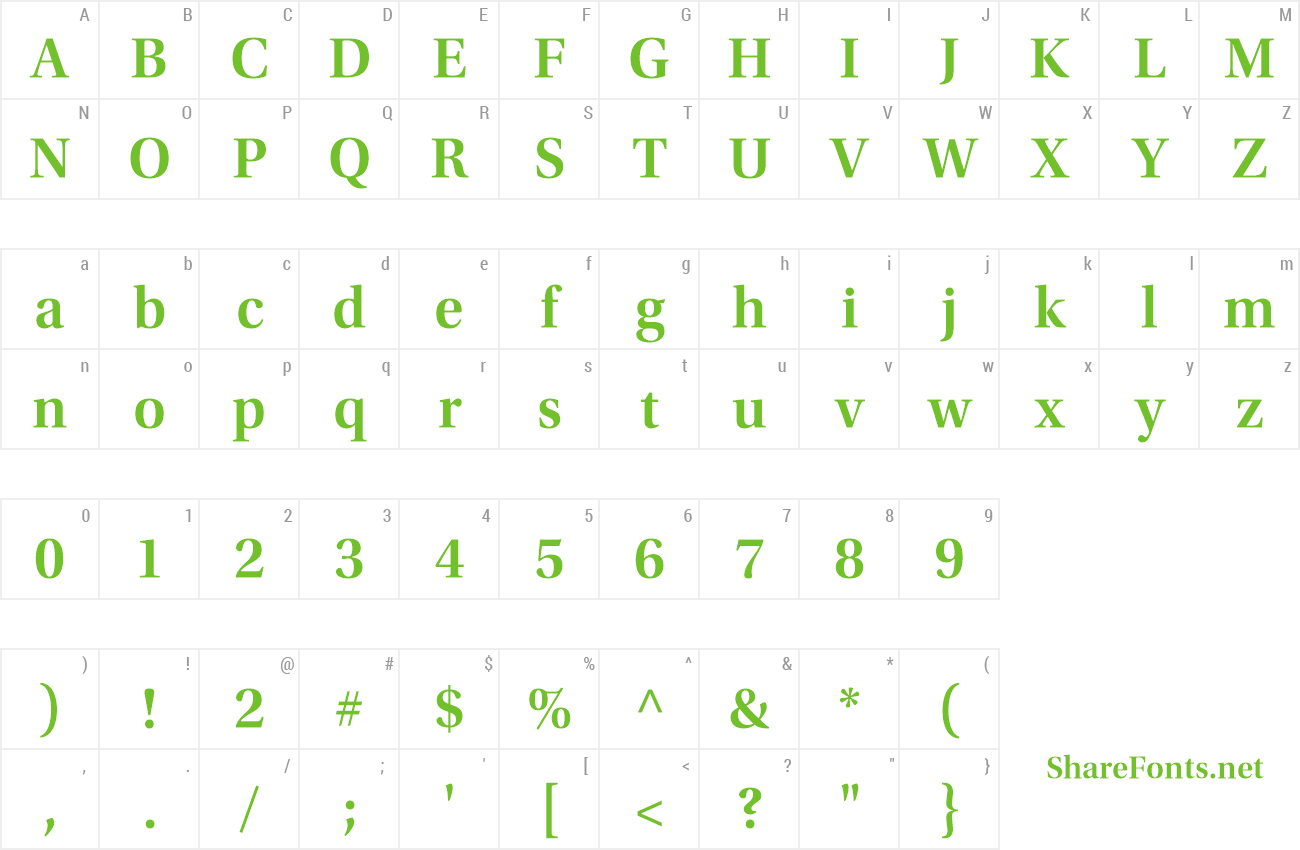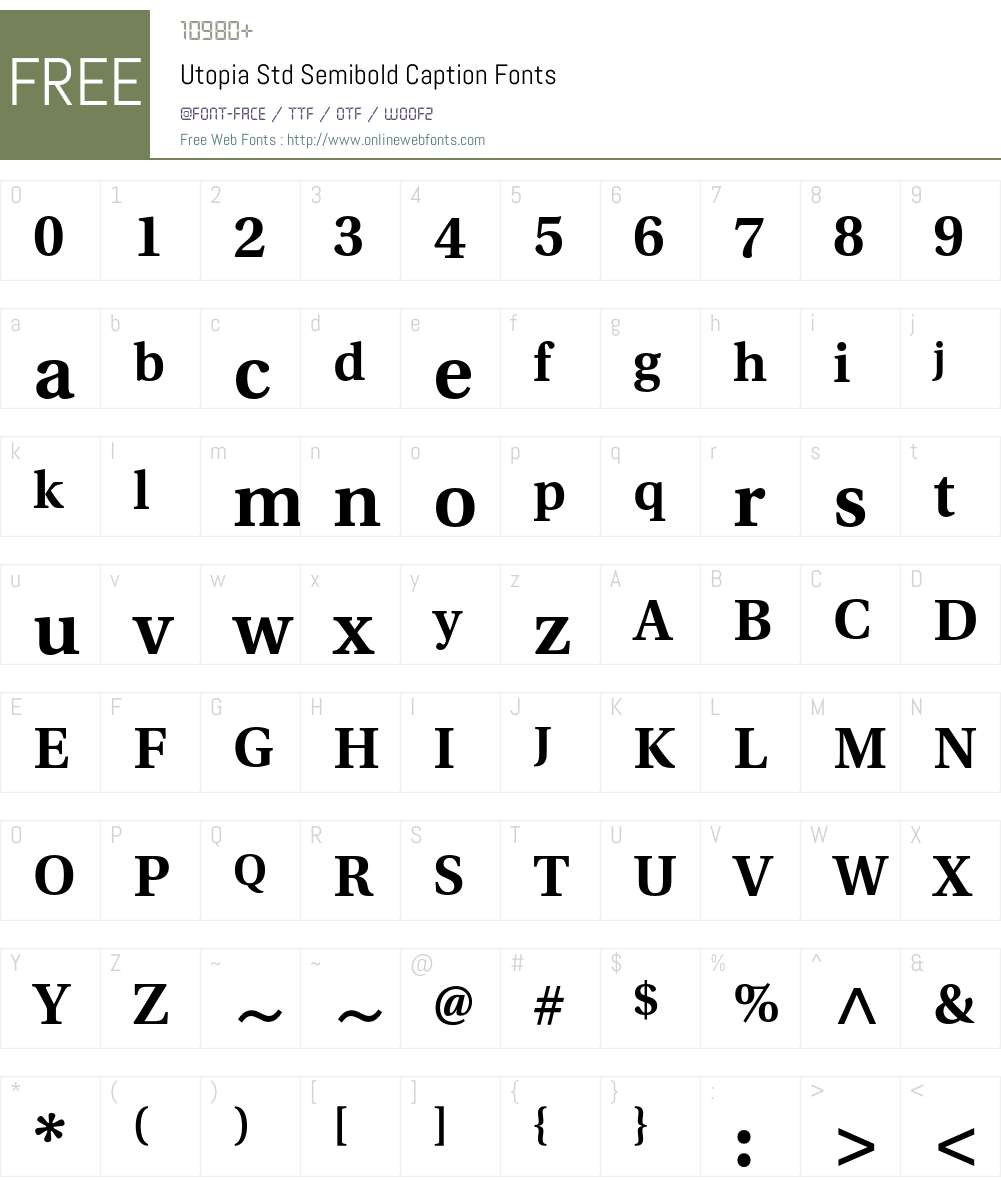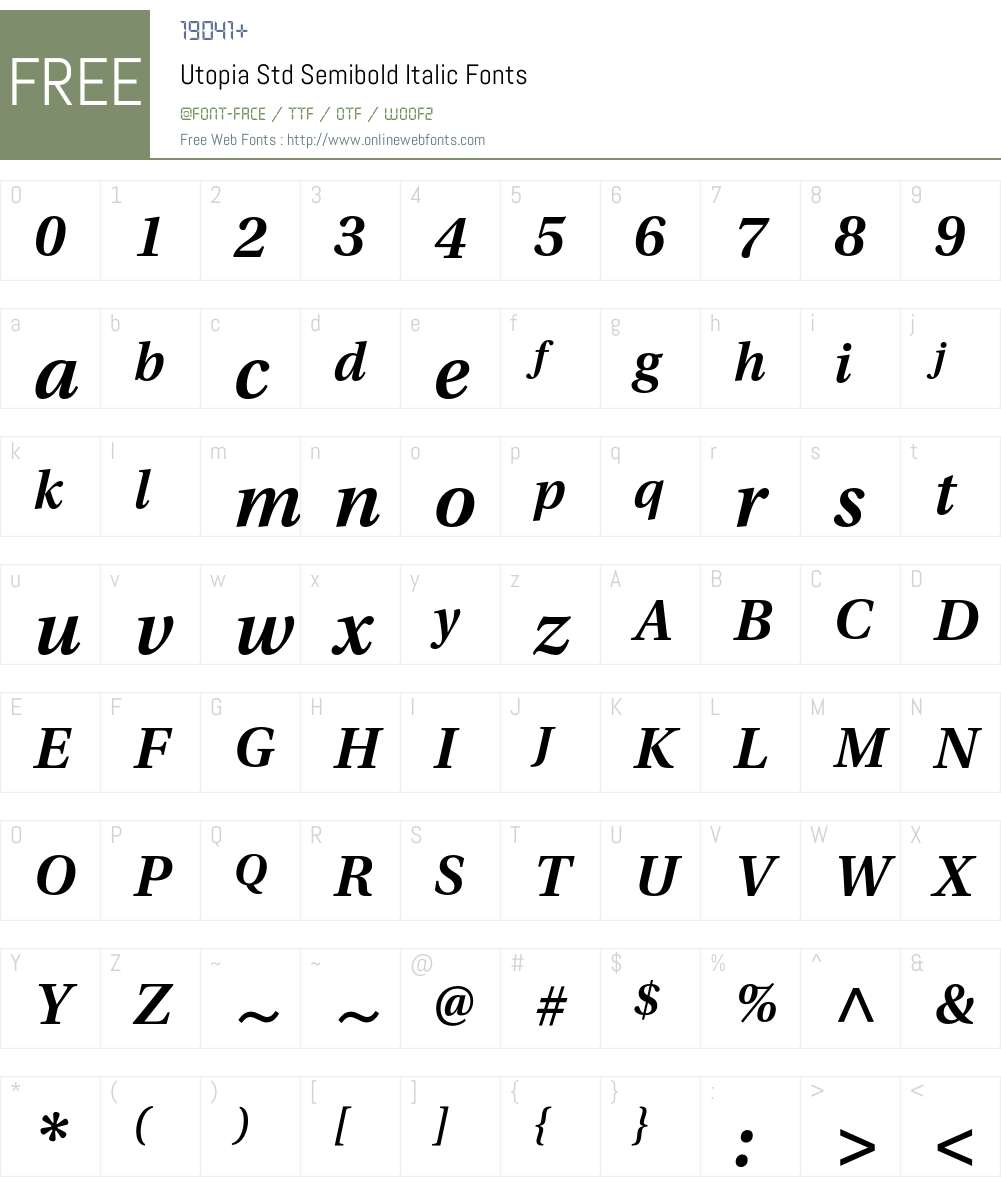
Utopia std font family free download. Download utopia regular font free in ttf format for windows and mac. We have thousands of free fonts available for you. The utopia font family is an adobe originals didone serif typeface that was designed by adobe systems employee robert slimbach in 1989.
Utopia std can be purchased as a desktop and a web font. Utopia is an adobe originals text face designed by robert slimbach in 1989. Download utopia std font with regular style.
It combines the vertical stress and pronounced stroke contrast of. All fonts are in truetype format. Custom fonts preview save settings utopiastd blackheadlineotf.